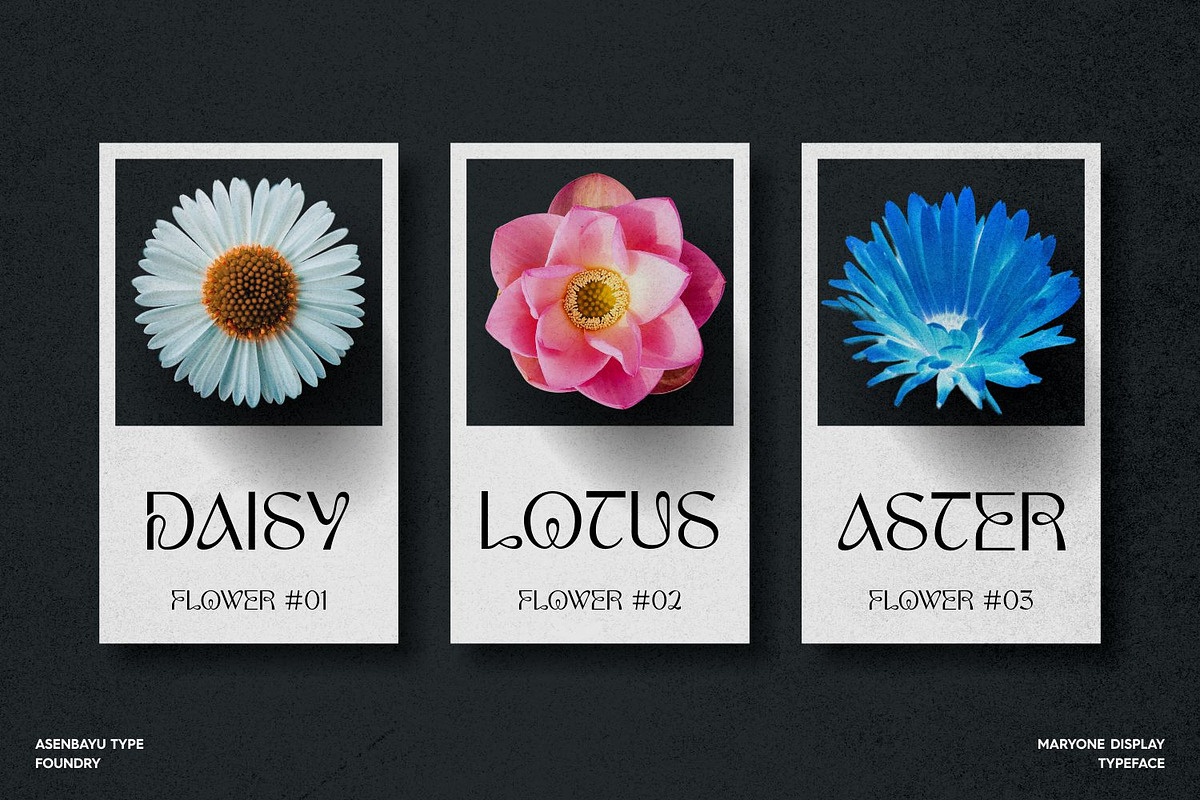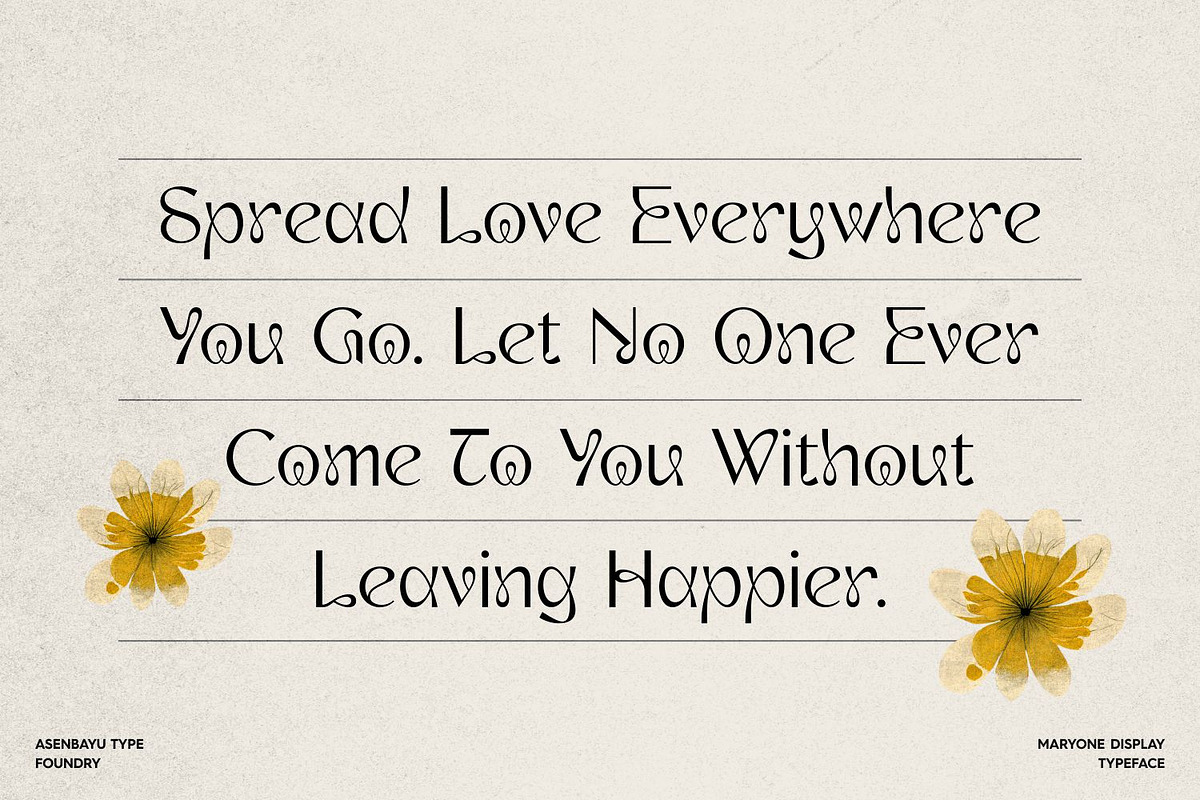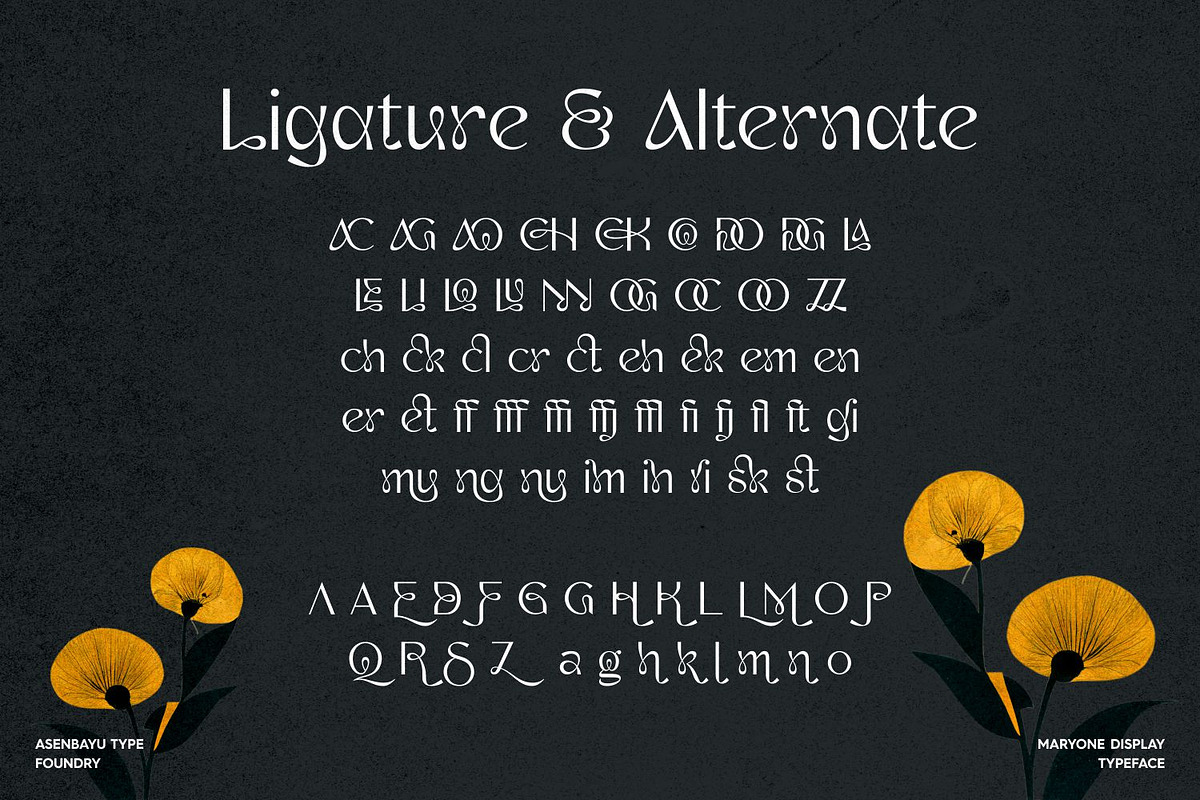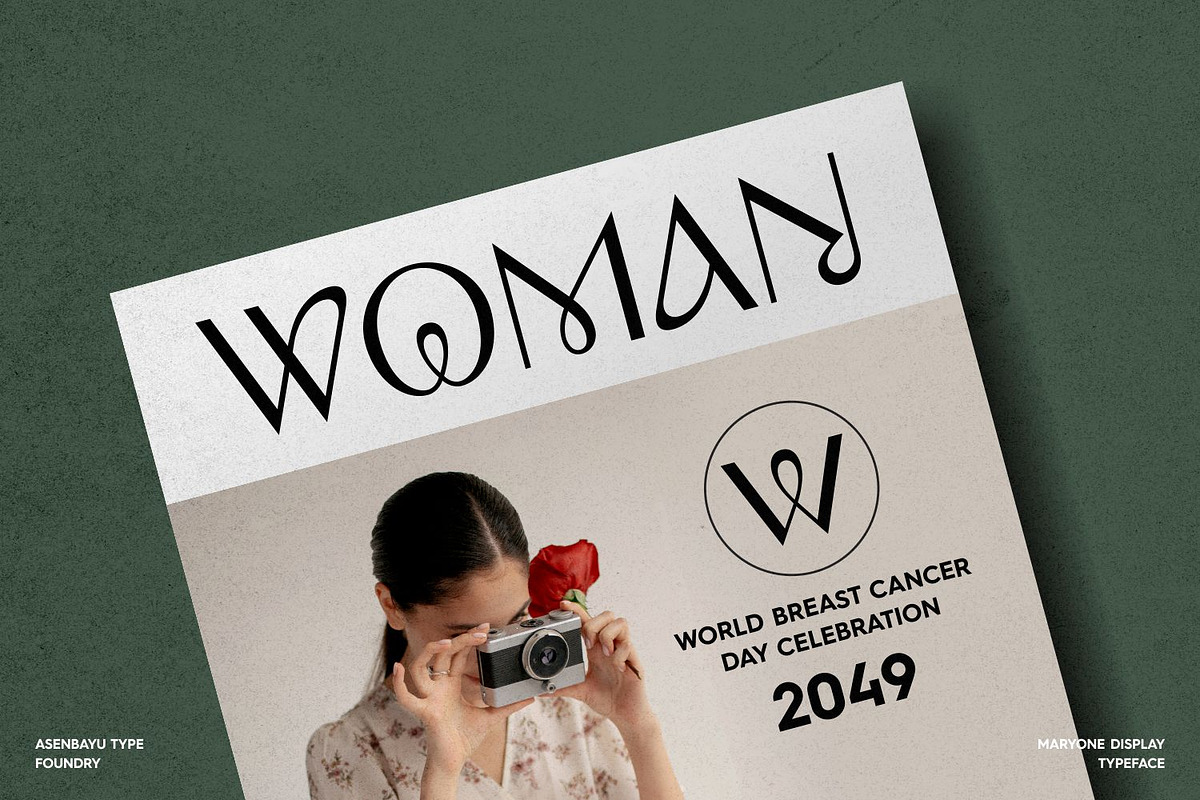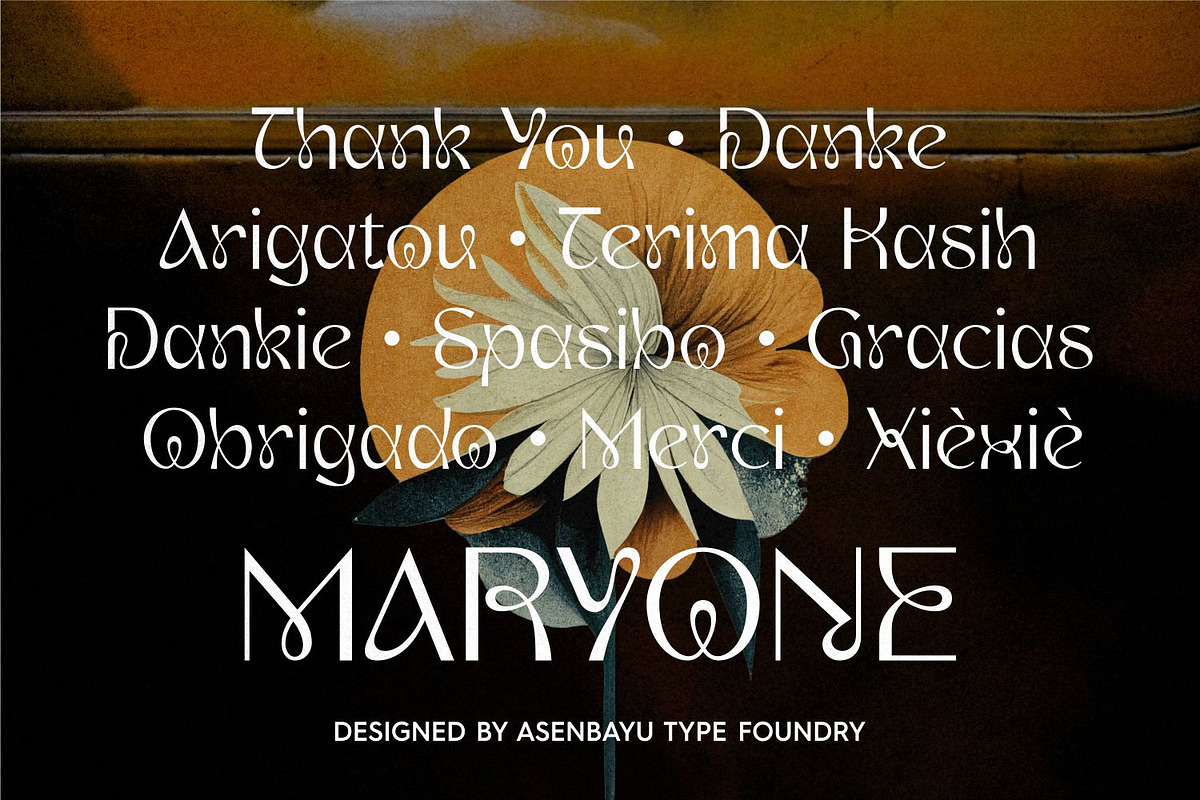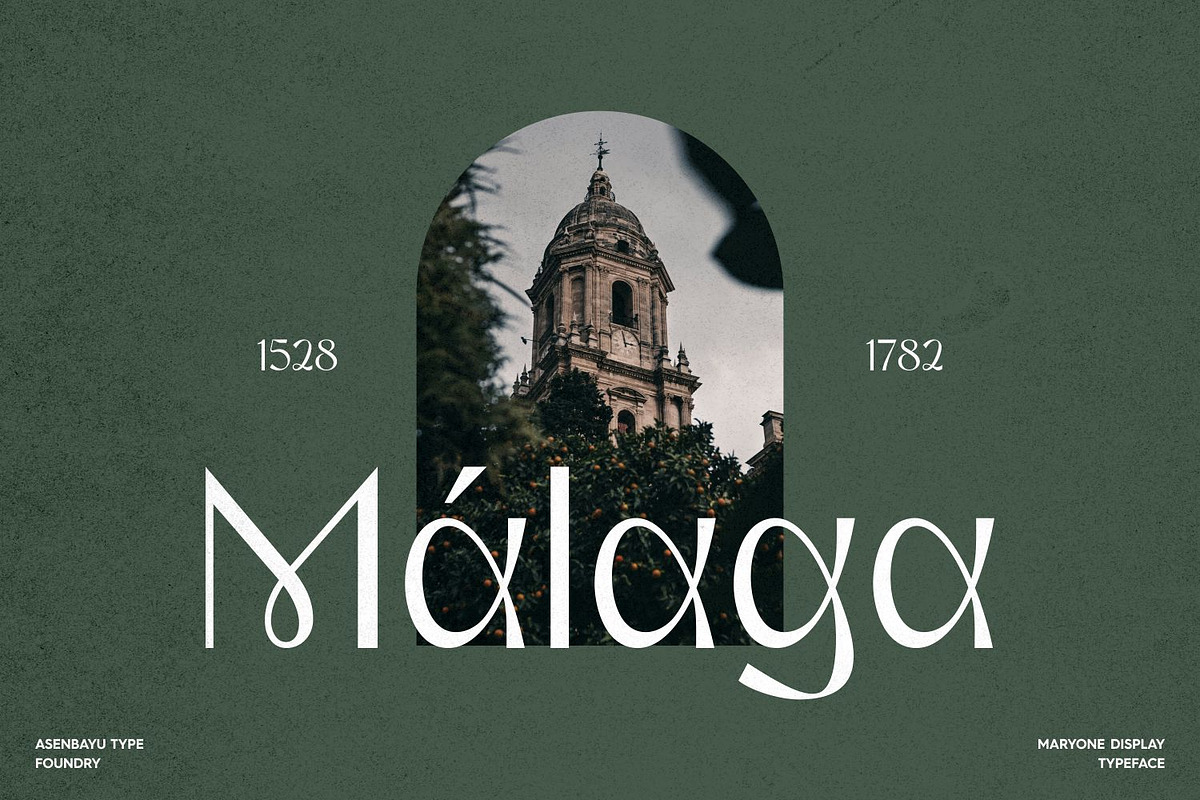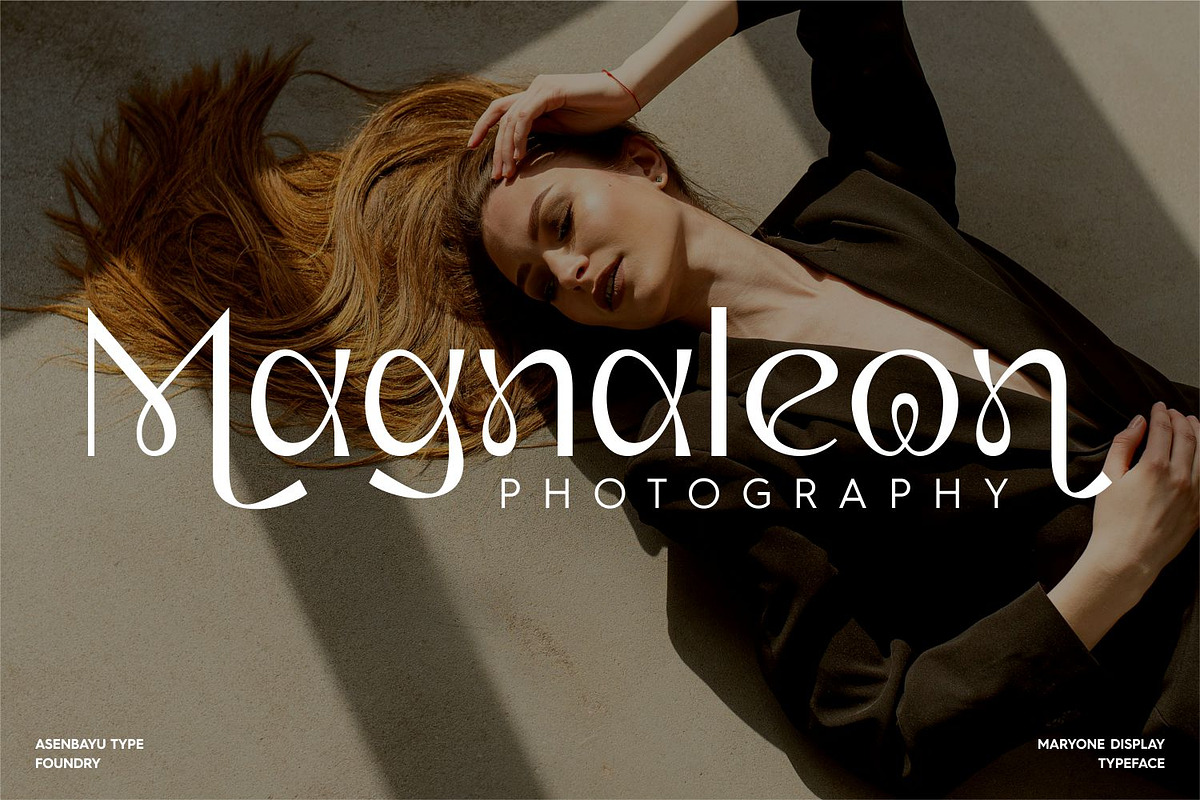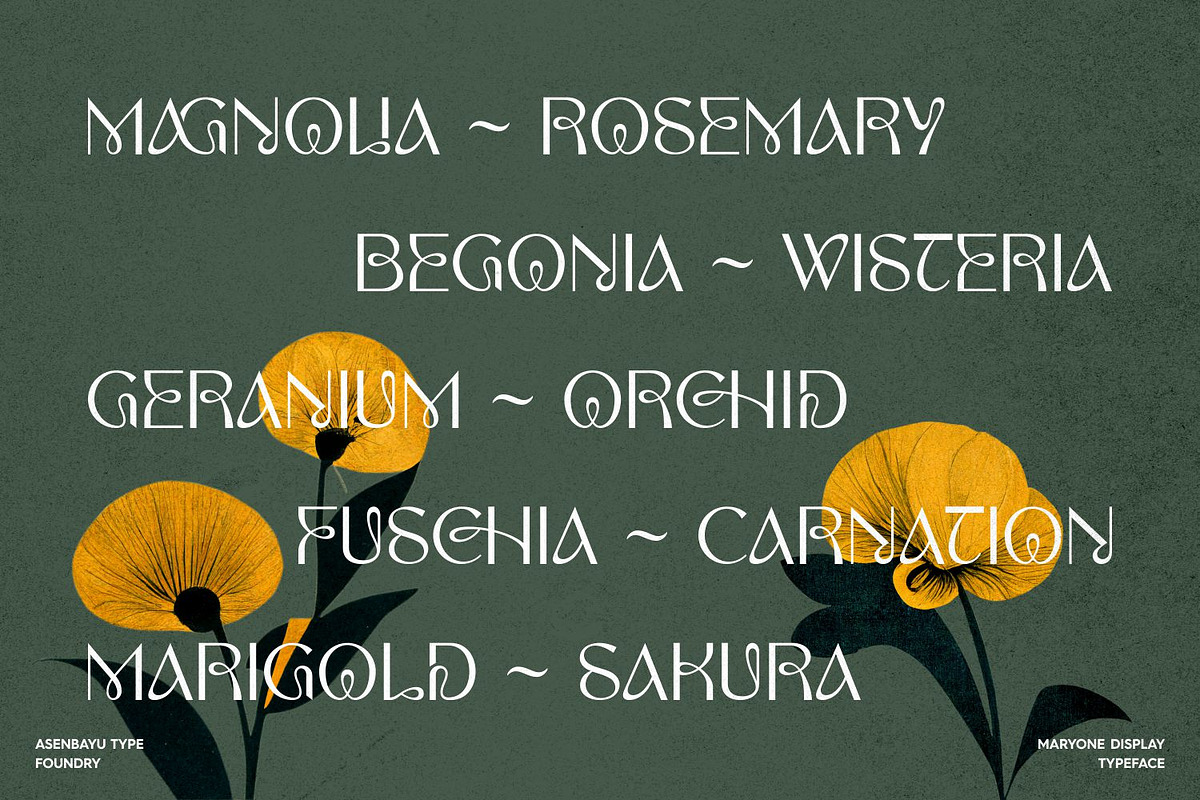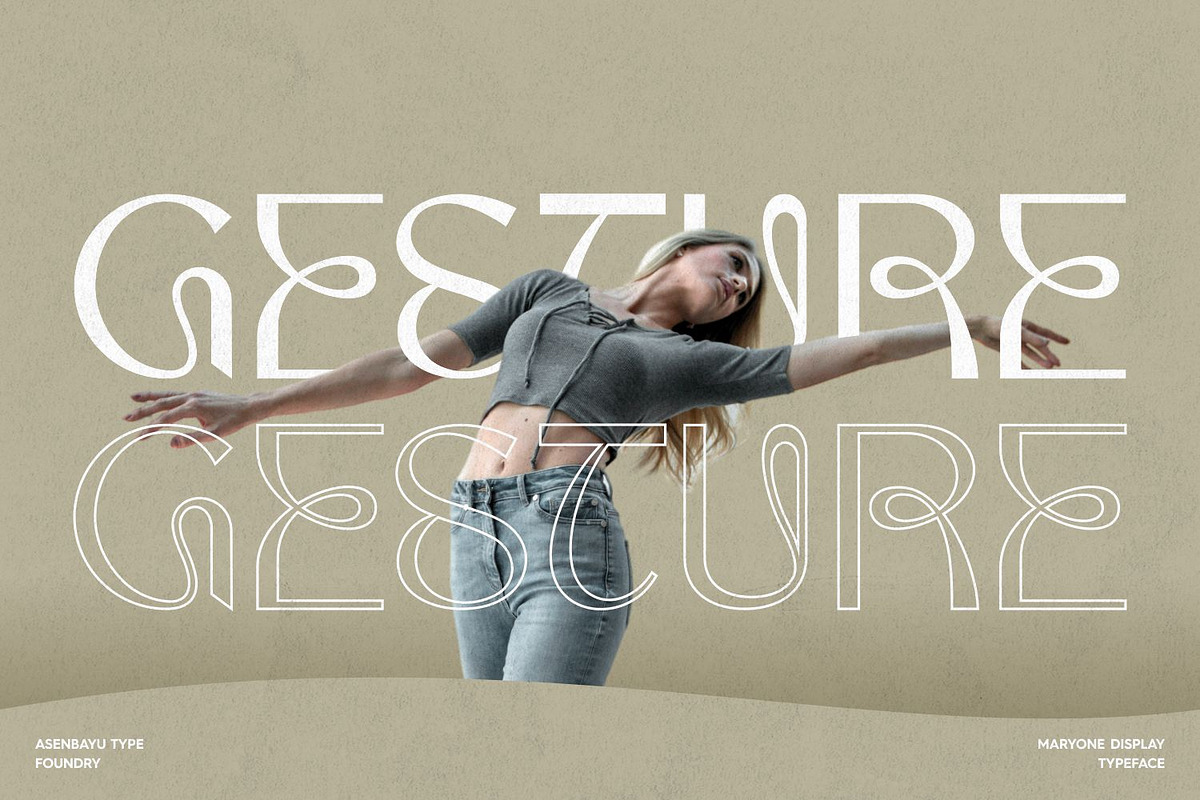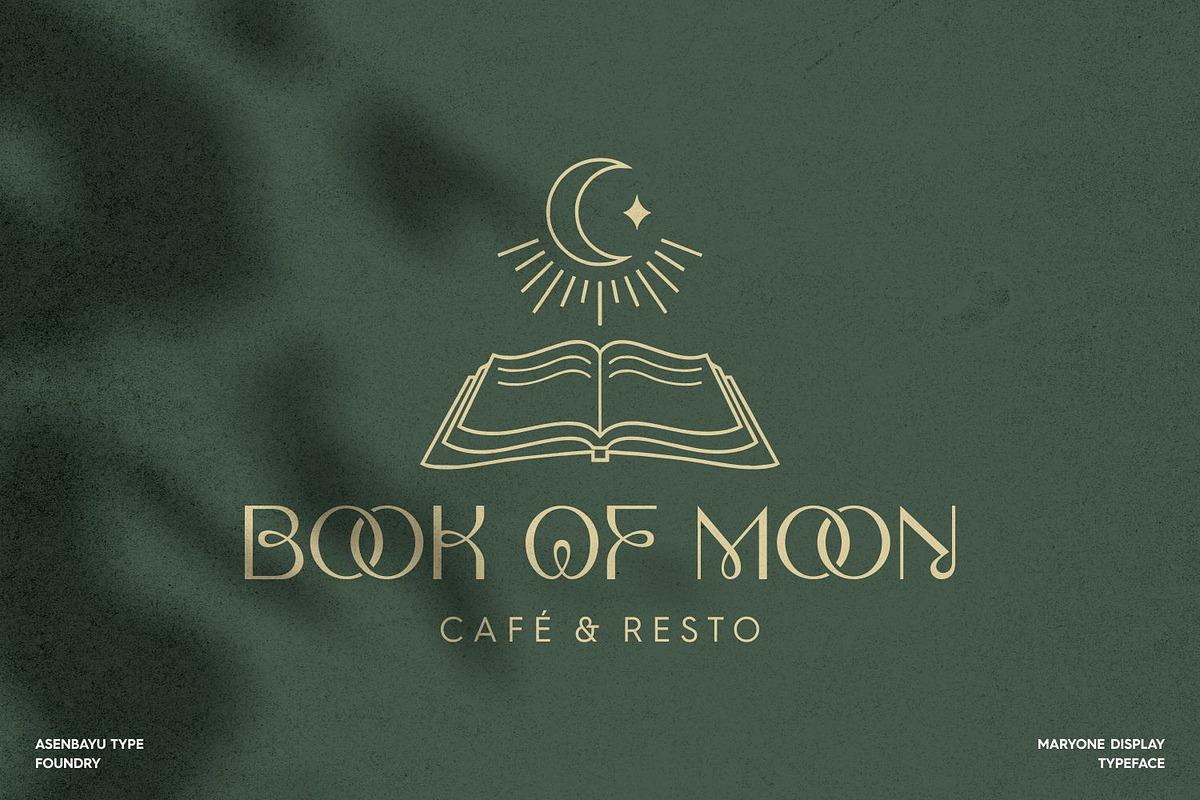
Maryone Font
Maryone is unique meander display font. Maryone combines an ultra fluid Art Nouveau style with a beautiful folded ribbons. Use it to convey desired logo designs, attractive posters, unique social media designs, fashion and websites. Maryone presents an elegant modern impression with a sans serif outline and curves in each letter.
Maryone font features: Kerning, standard glyphs, stylistic alternates, stylistic ligatures, symbol, punctuation and multiple languages supported.